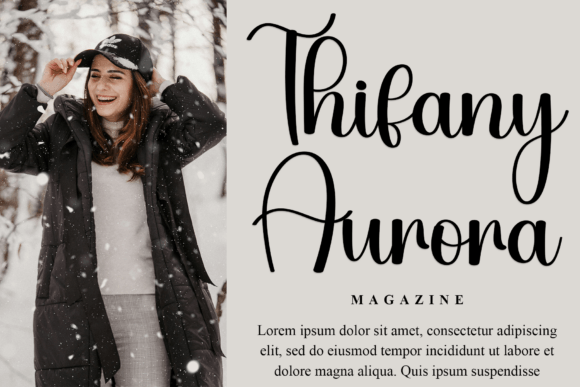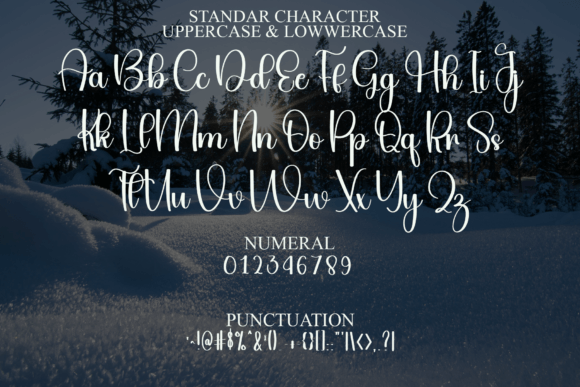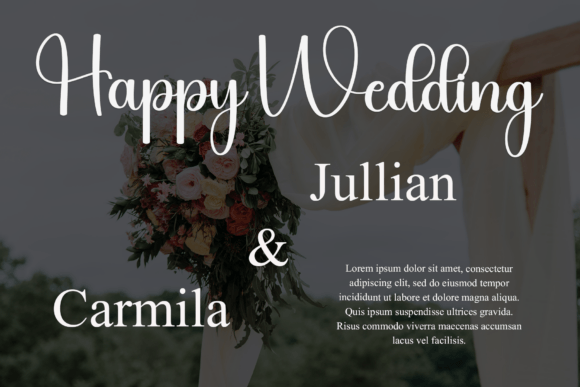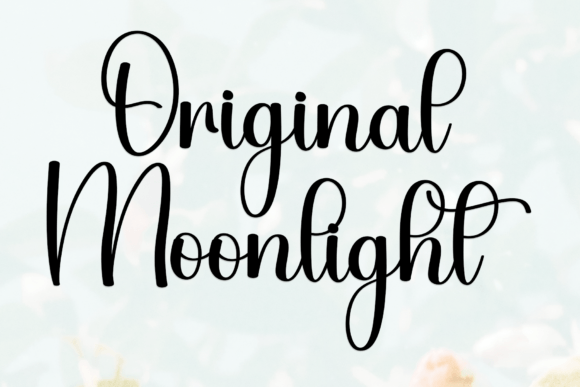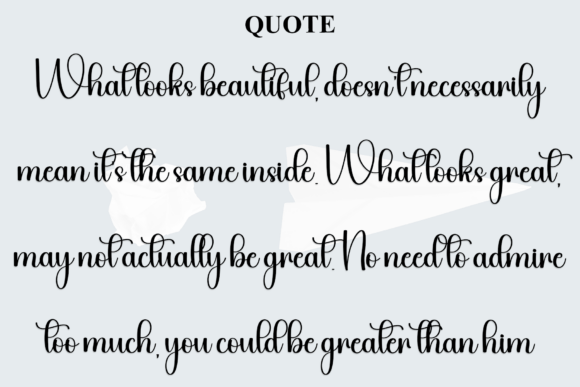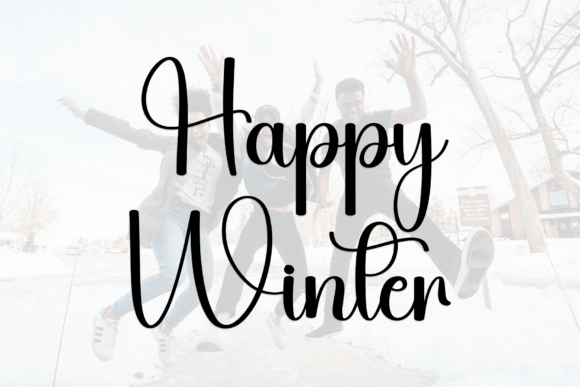
Introducing Happy Snowing Font: Elevate Your Designs with Elegance and Sophistication
Are you on the lookout for a font that exudes style, beauty, and elegance? Look no further than the Happy Snowing Font, a stunning typeface that brings a touch of contemporary sophistication to your designs. Inspired by timeless classic calligraphy, this font is meticulously crafted to add a dash of refinement and poise to your projects.
What Makes Happy Snowing Font Stand Out?
Happy Snowing Font boasts a unique blend of classic charm and modern flair, making it an ideal choice for designers and crafters seeking to create visually stunning works. Here are some key features that set this font apart:
- Contemporary Atmosphere and Impeccable Form: The Happy Snowing Font is designed with a keen eye for detail, ensuring that every curve, line, and nuance contributes to a cohesive and polished aesthetic.
- Balanced and Varied: This font strikes the perfect balance between elegance and readability, making it suitable for a wide range of applications, from elegant headings to beautiful quotes and phrases.
Unlock Endless Creative Possibilities
With the Happy Snowing Font, you can elevate your designs to new heights. Whether you’re working on:
- Branding and Logos: Create a lasting impression with a sophisticated and memorable brand identity.
- Digital and Print Materials: Enhance your brochures, posters, business cards, and social media graphics with a touch of elegance.
- Crafting and DIY Projects: Add a personal touch to your handmade creations, such as journals, cards, and scrapbook pages.
The Happy Snowing Font’s versatility ensures that it will become a go-to choice for any project requiring a dash of sophistication and refinement.
Why Choose Happy Snowing Font?
In a world where fonts are plentiful, the Happy Snowing Font stands out for several reasons:
- Unique and Distinctive: This font’s classic calligraphy inspiration, combined with its modern twist, ensures that your designs will stand out from the crowd.
- High-Quality Design: Every detail, from the font’s structure to its various glyphs and ligatures, has been carefully crafted to ensure a premium look and feel.
In conclusion, the Happy Snowing Font is a stylish, beautiful, and elegant typeface that brings a contemporary atmosphere and impeccable form to your designs. Its balanced and varied nature, combined with PUA encoding for easy access to glyphs and ligatures, makes it an indispensable tool for designers and crafters alike. Whether you’re looking to create stunning brand identities, beautiful print materials, or unique crafting projects, the Happy Snowing Font is sure to exceed your expectations.